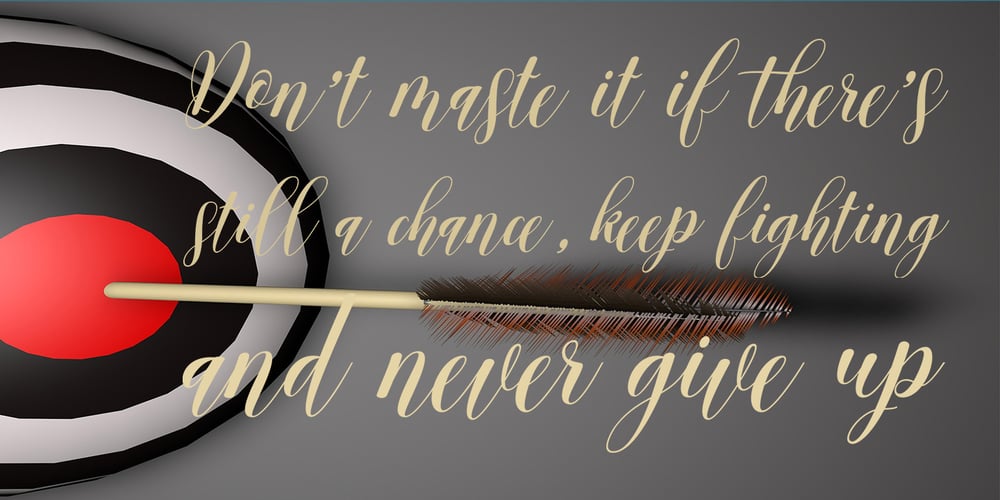
Archery Font Family was designed by Saiful and published by Encolab. Archery contains 1 styles and family package options. Archery is a modern handwritten font with handwritten suitable for logo, product packaging, branding, headlines, labels, book covers, posters, quotes and more.This font replaces all lowercase letters, also comes with ligatures and unique and beautiful alternatives as well as international support for most western languages. Fonts include (OTF ). How to access all of the alternate characters: https://www.youtube.com/watch?v=XzwjMkbB-wQ Archery is coded with PUA Unicode, which allows full access to all the extra characters without having special designing software. Mac users can use Font Book , and Windows users can use Character Map to view and copy any of the extra characters to paste into your favourite text editor/app. How to access all alternative characters, using Windows Character Map with Photoshop: https://www.youtube.com/watch?v=Go9vacoYmBw Thanks & Happy Designing